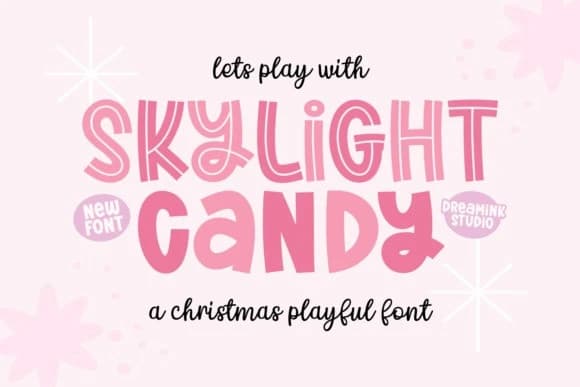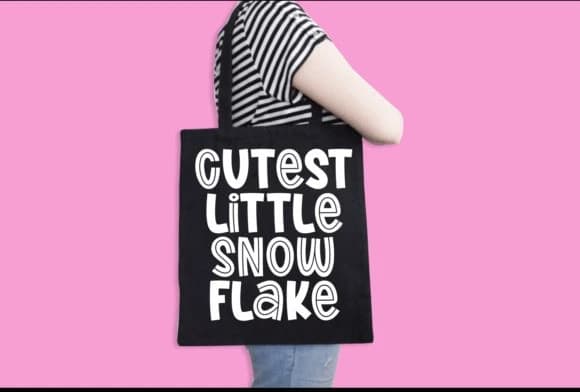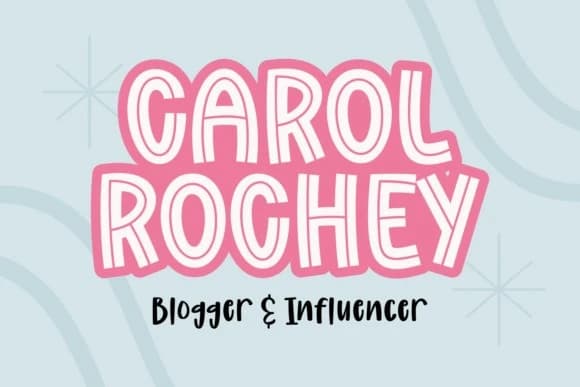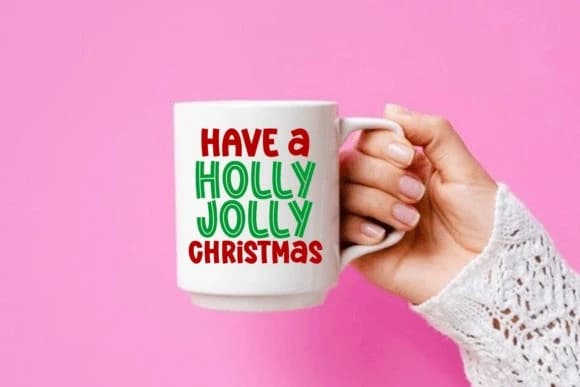
Skylight Candy Font
Skylight Candy Font is a whimsical and vibrant font that adds a touch of playful charm to any project. Perfect for projects aimed at capturing a youthful and lighthearted spirit, Skylight Candy brings a delightful sweetness to your designs.